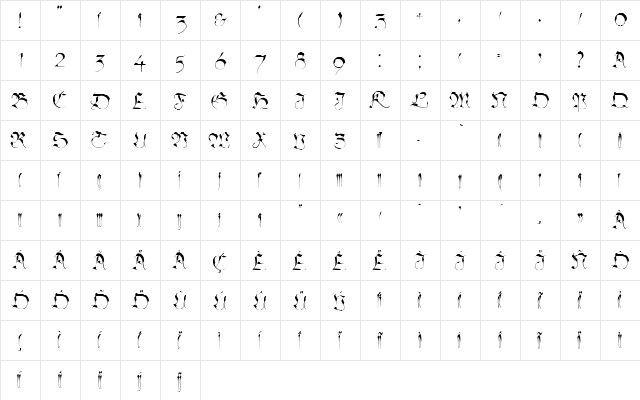
LTSangue Medium
Design Context for LTSangue Typeface
LTSangue is a composed and adaptable typeface that performs quietly and consistently across a wide range of design contexts.